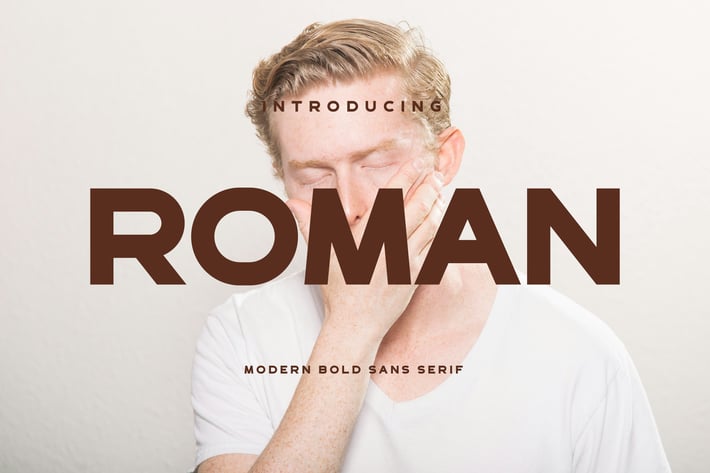
Roman Bold Sans Font
Roman Sans Font Typeface inspired by the famous minimalist logo perfect for the purposes of designing templates, brochures, videos, advertising branding, logos, invitation, layout design, elegant crafting, beauty design and other.